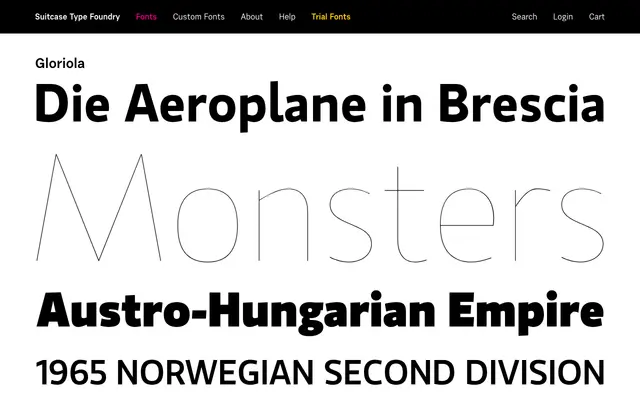
A humanist sans-serif from Suitcase Type Foundry with a refined, legible character suited to text and editorial work.
Gloriola is a humanist sans-serif from Prague-based Suitcase Type Foundry, whose catalogue is known for thoughtful Central European type design. The page provided too little detail to confirm the full weight range, optical sizes or language support beyond the family name. Further information should be drawn directly from the foundry's product page.
The name and foundry context suggest a refined sans-serif; Suitcase Type Foundry's catalogue skews toward humanist and geometric sans designs with Central European sensibilities.